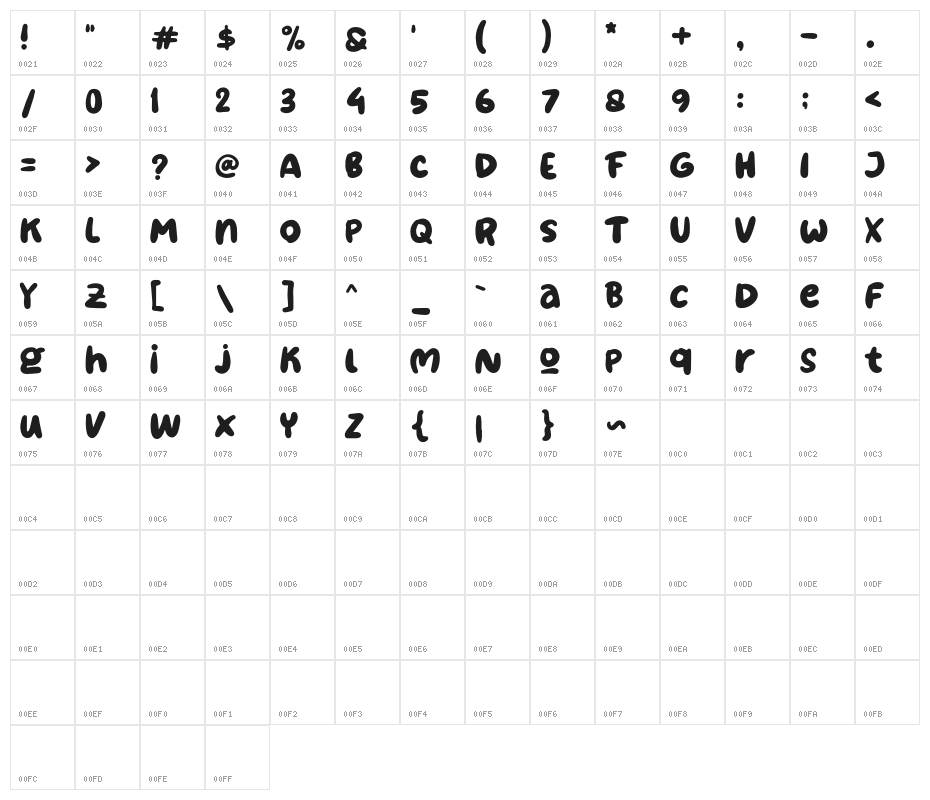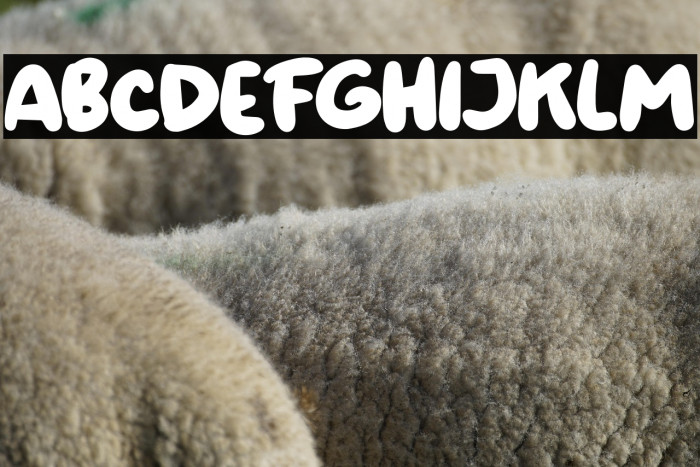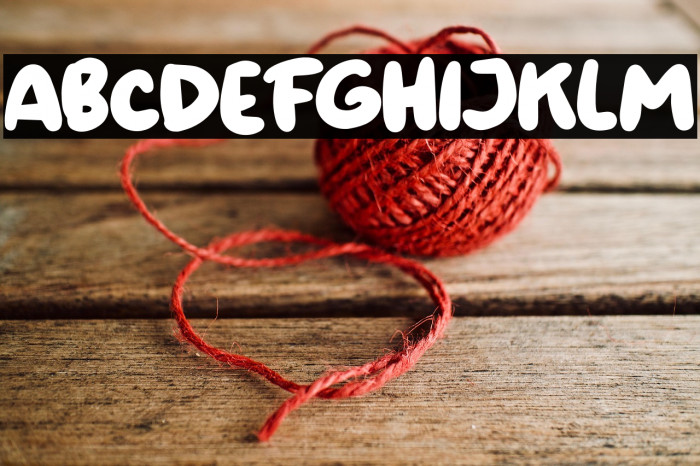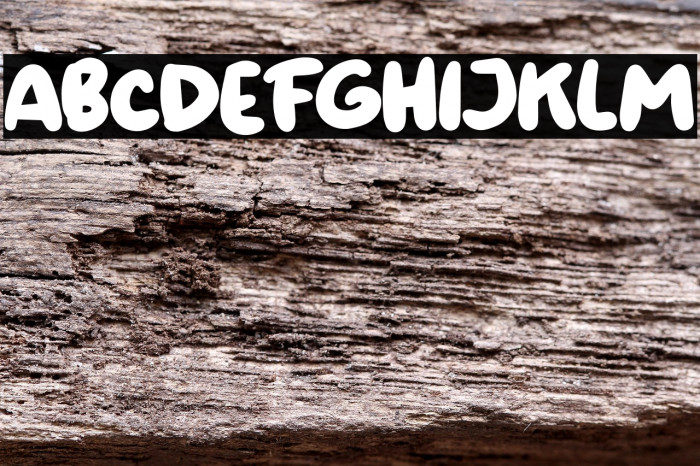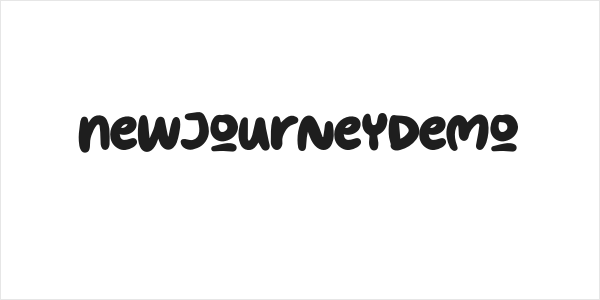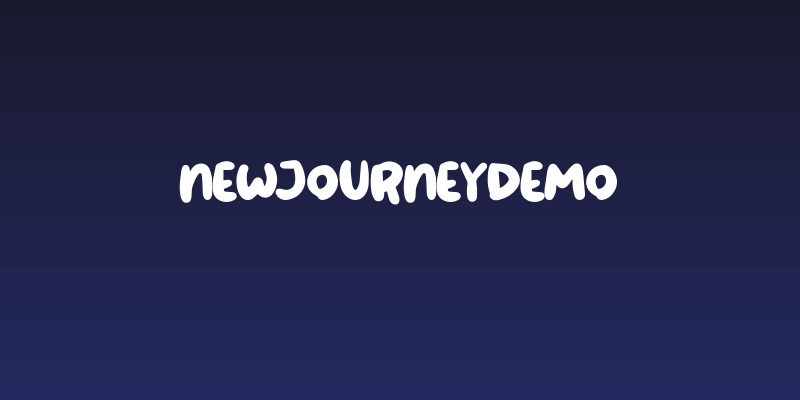
NewJourneyDemo Font
NewJourneyDemo Description
This font features a playful and bold design with rounded, bubbly characters that convey a sense of fun and approachability. The letters are thick and have a consistent stroke width, giving them a strong presence on the page. The overall style is informal and friendly, making it suitable for creative and casual projects. The font includes both uppercase and lowercase letters, numbers, and a variety of special characters, all maintaining the same whimsical aesthetic. Its unique style makes it stand out, perfect for designs that aim to capture attention and convey a lively message.
| Proposed Projects | Ideal for children's books, playful branding, posters, and social media graphics. |